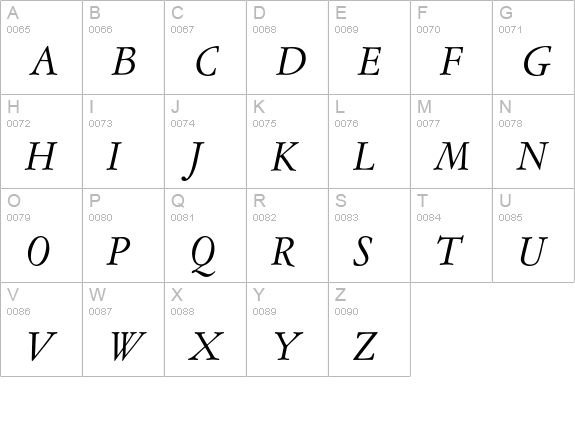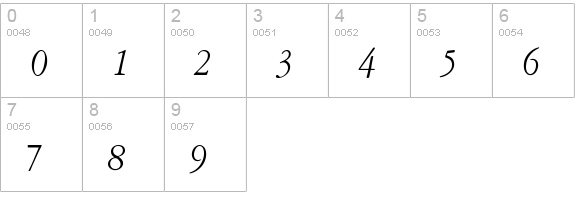
Garamont AMSTERDAM Italic is a distinctive, italic variant in the Garamont typeface family \xE2\x80\x94 well suited to design and typography projects.
Garamont AMSTERDAM Italic font is a timeless and elegant typeface that exudes sophistication and style. With its graceful italic design, this font is perfect for adding a touch of class to any project. The flowing curves and delicate serifs of Garamont AMSTERDAM Italic create a sense of elegance and refinement that will elevate your designs to new heights. What's even better is that this exquisite font is available for free download at FontsMarket.com. Whether you're working on a branding project, editorial design, or any other creative endeavor, Garamont AMSTERDAM Italic is sure to make a lasting impression. Embrace the beauty and versatility of this stunning typeface and take your designs to the next level. Download Garamont AMSTERDAM Italic today and let your creativity shine!